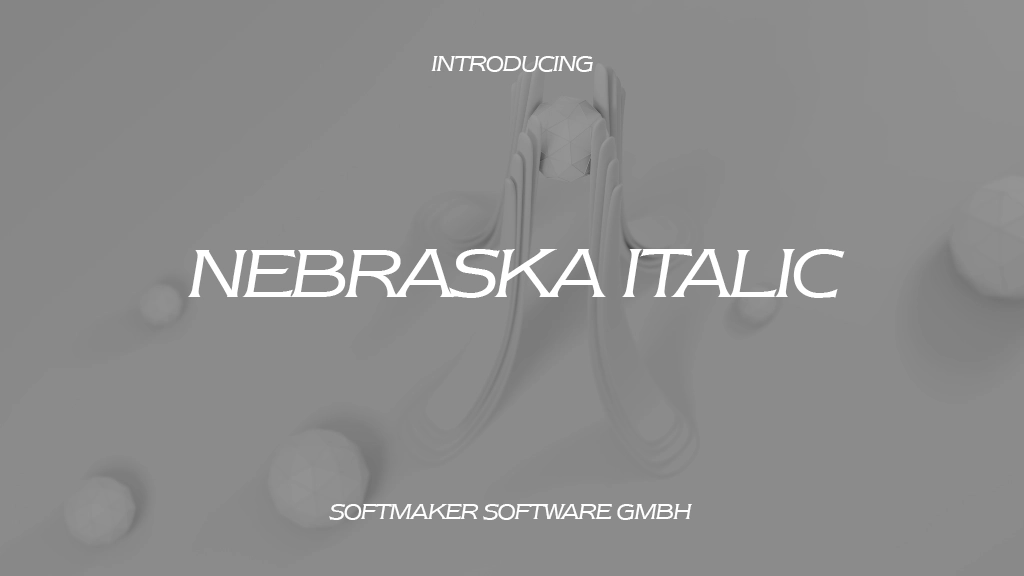
Nebraska Italic is a fun and stylish font that is perfect for personal projects.The font subfamily is Italic. It is free to use and was designed by SoftMaker Software GmbH.